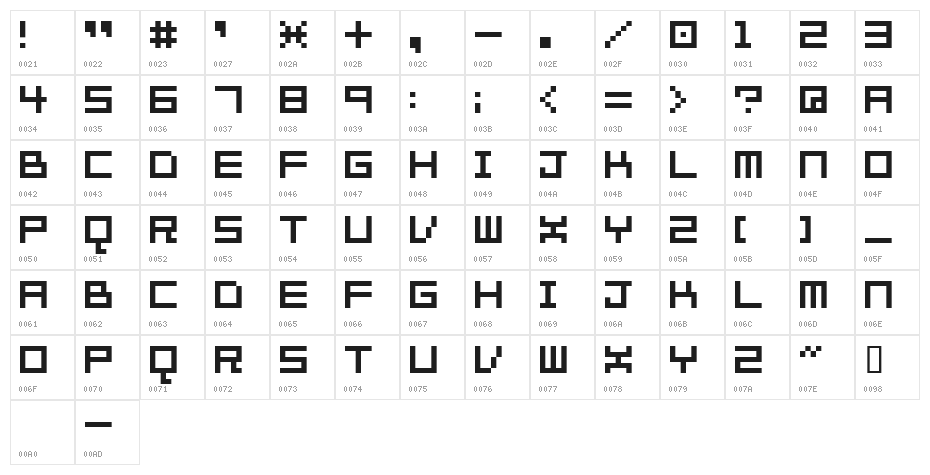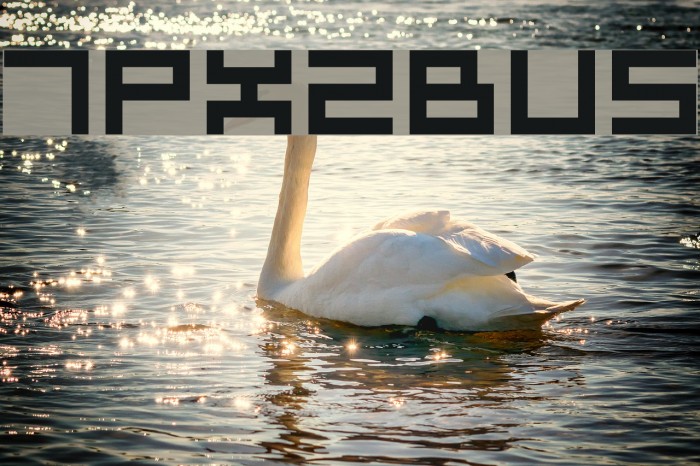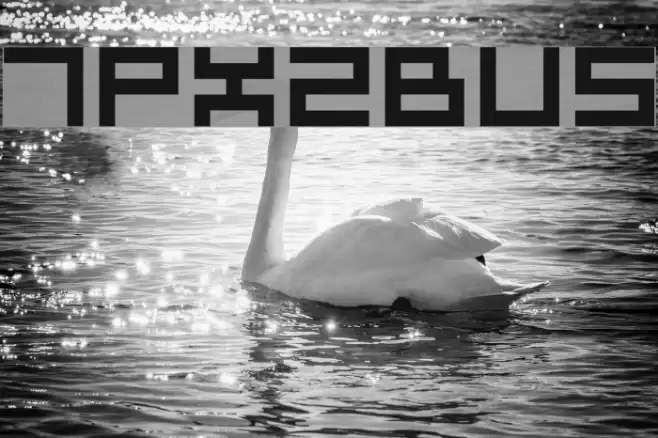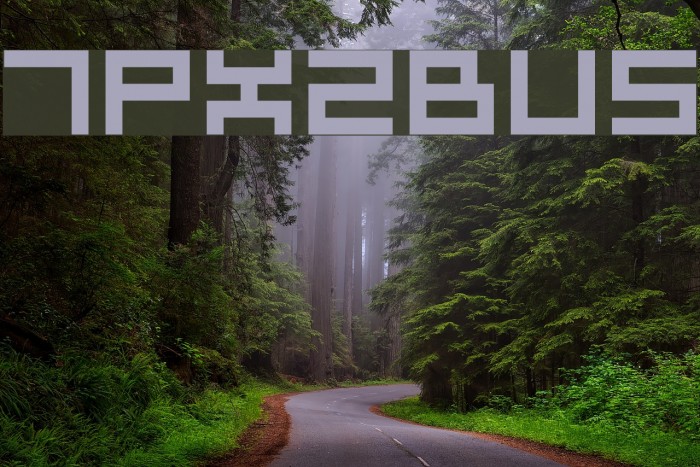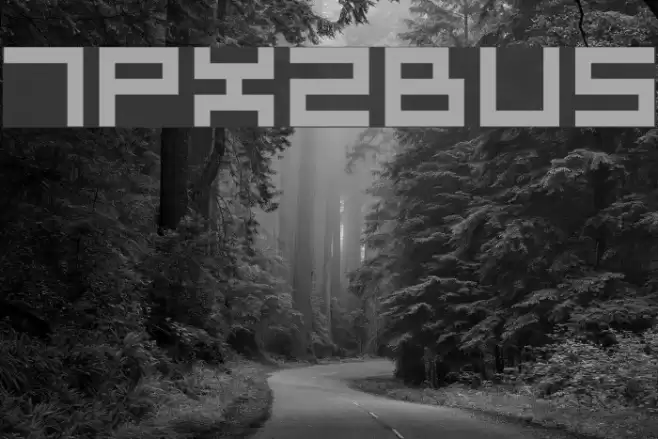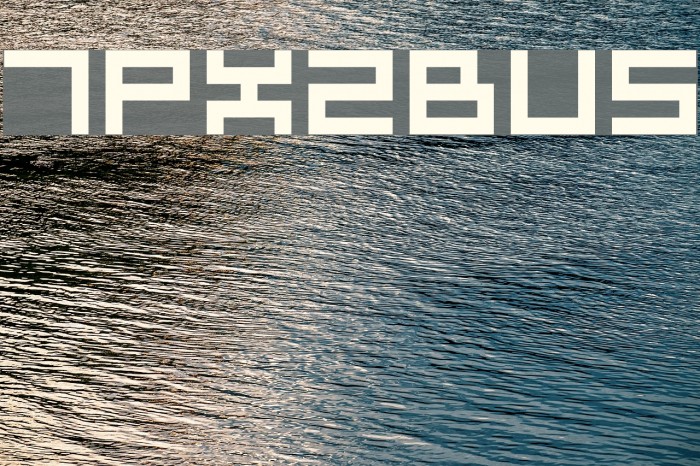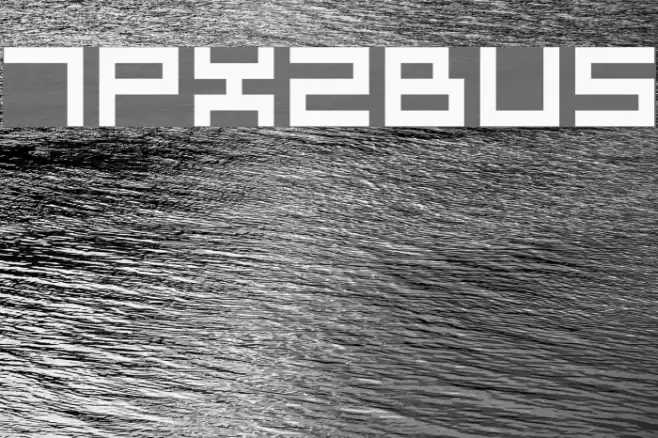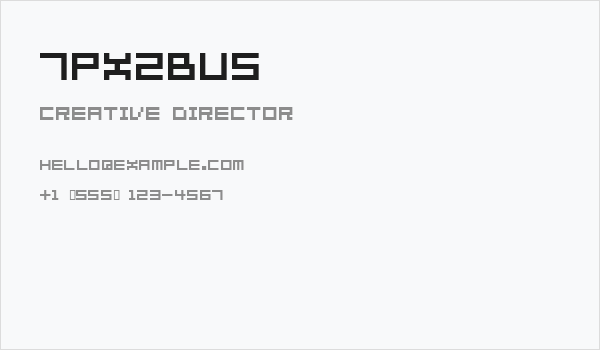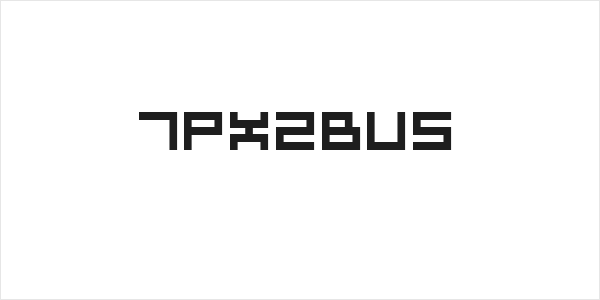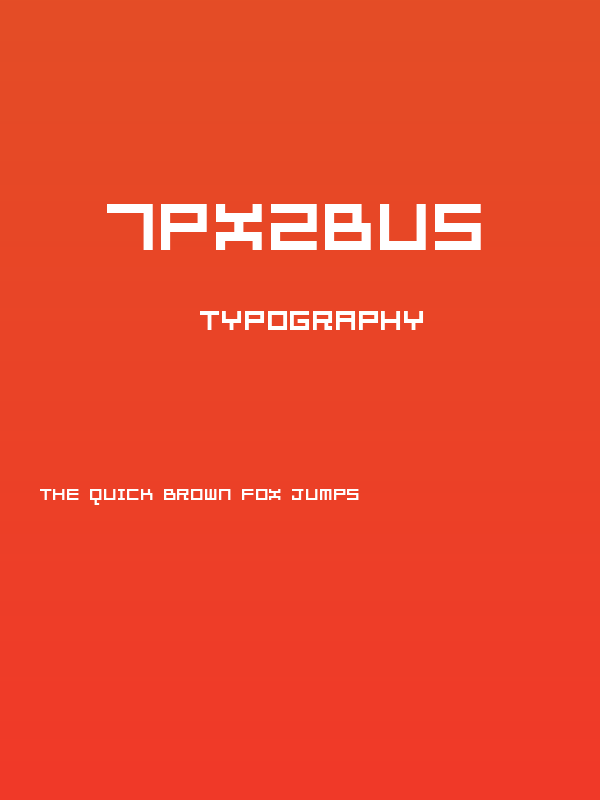
7px2bus Font
7px2bus Description
This font features a pixelated, blocky design reminiscent of early digital displays and retro video games. Each character is constructed with uniform square blocks, giving it a distinctly digital and geometric appearance. The uppercase and lowercase letters maintain a consistent height, contributing to a monospaced feel, although the font is not strictly monospaced. The numerals and special characters follow the same pixelated style, ensuring a cohesive look across all glyphs. This font's simplicity and clarity make it ideal for digital applications where a retro or tech-inspired aesthetic is desired.
| Use Case | Logos, Digital displays, Video games |
| Proposed Projects | Ideal for retro video games, digital displays, tech-themed graphics, and nostalgic digital art projects. |